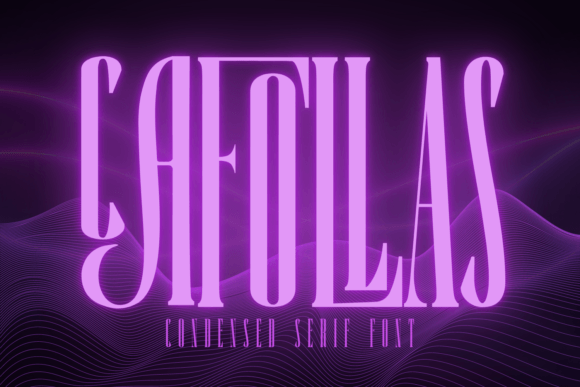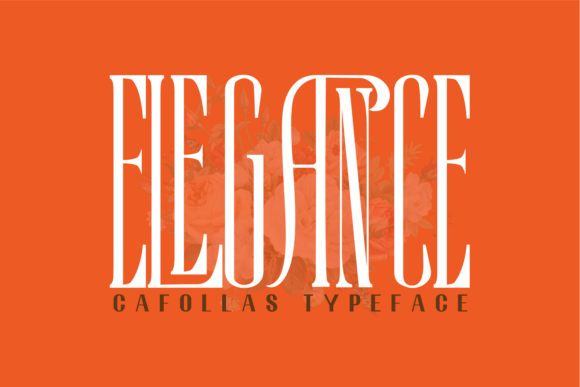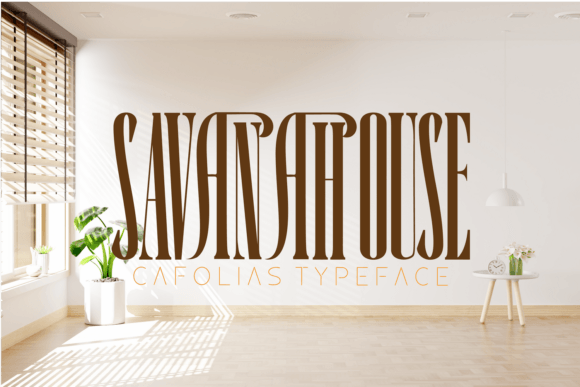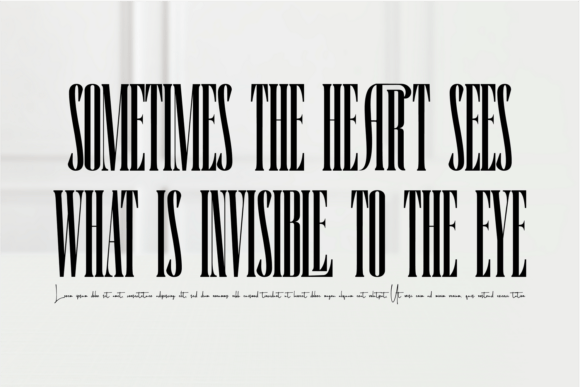
Cafollas Font
About the Cafollas Font
The Cafollas Font is here to transform your projects with its distinctive character and style. Cafollas Font is a condensed serif typeface created to be used for bold titles with distinctive shapes into a display fonts way to make it legible for contemporary use. It’s an extra condensed grotesque, made with its own unique character and form of a typeface. This font is perfect for Headlines and titles, digital advertisements, brochures and flyers, infographics and data visualizations, and many more.
Cafollas’s bold, geometric forms make it ideal for headlines, logos, and short impactful text in branding projects requiring a strong, modern aesthetic. It excels in posters and advertising where immediate visual impact is key. However, its condensed nature makes it unsuitable for body copy or extended reading; the narrow letterforms would strain readability in paragraphs.
Consider pairing Cafollas with a clean sans-serif like Open Sans for body text to create a strong contrast and balanced hierarchy. For a more sophisticated feel, a delicate script font such as Great Vibes could complement its strong geometric shapes, adding a touch of elegance. Avoid pairing it with other highly condensed or decorative fonts to prevent visual clutter.
Its core personality is confident and assertive, making it a perfect fit for brands projecting power, innovation, or a cutting-edge image. Think technology companies, luxury goods, or architectural firms.
Cafollas Font Usage Examples
Cafollas Font Example